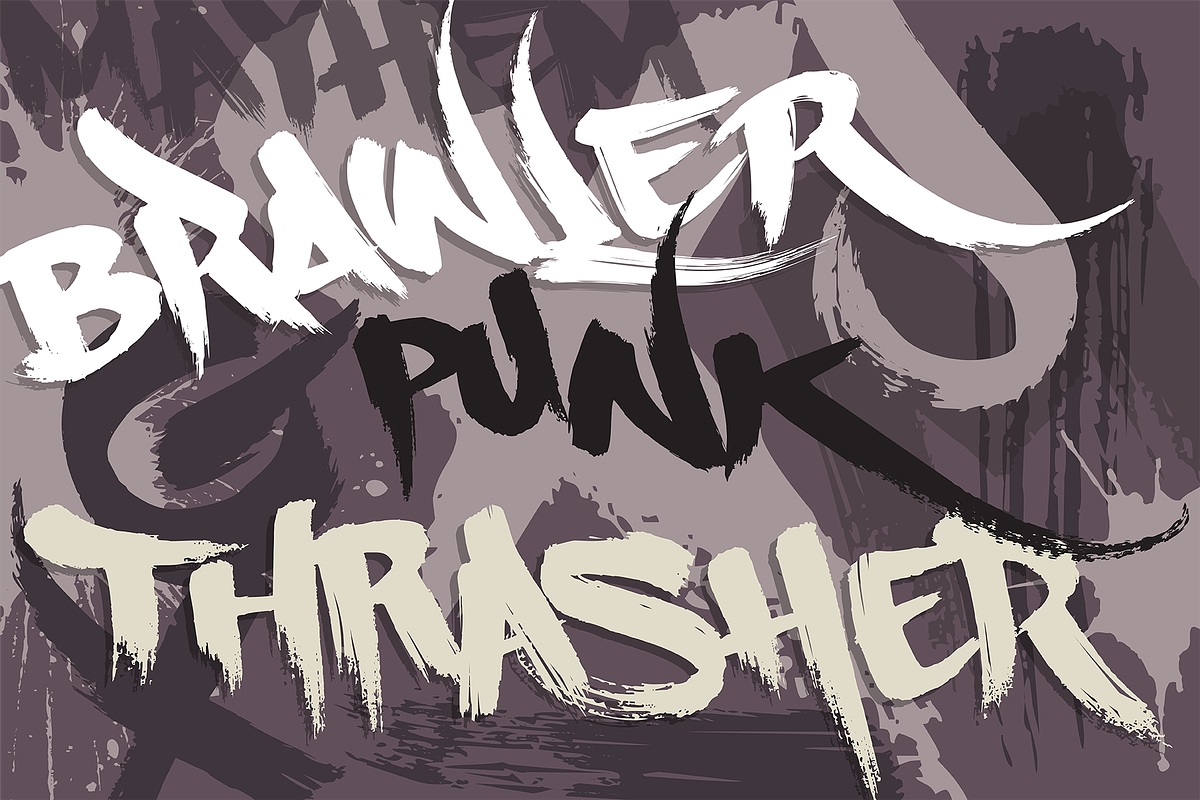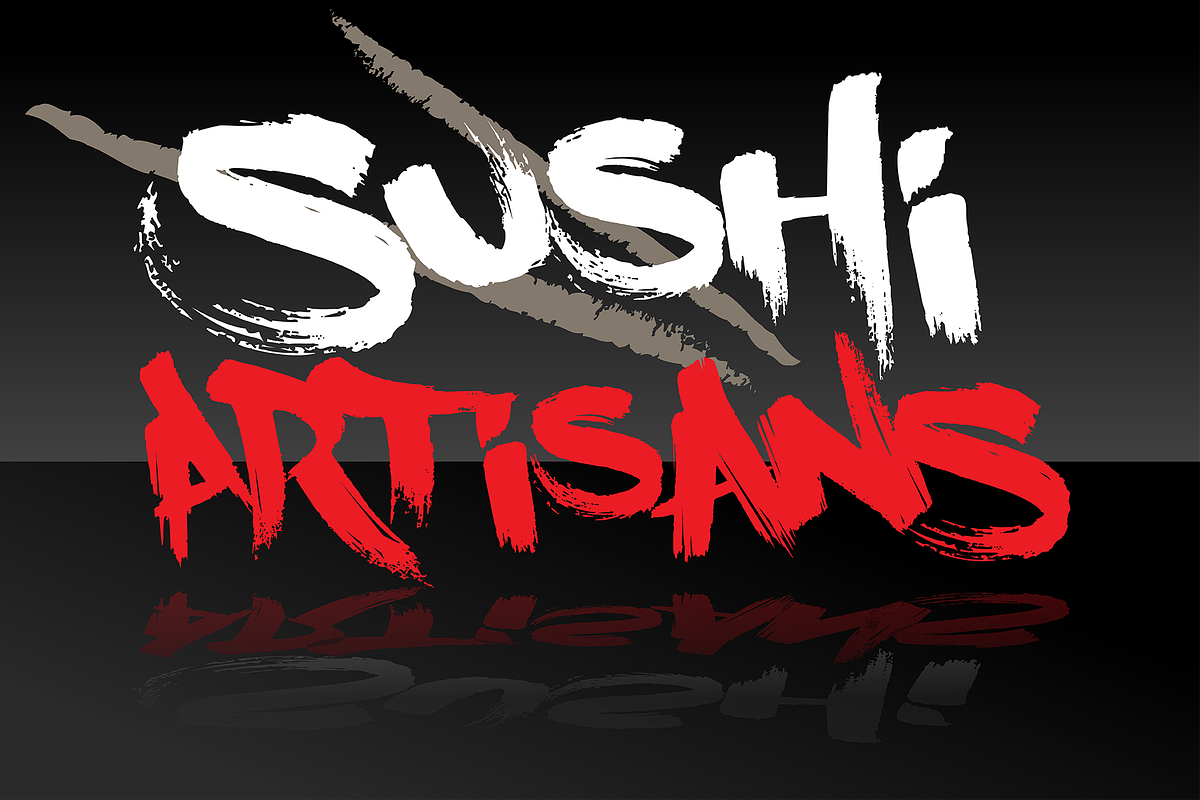
Fresh Paint Graffiti Font
Fresh Paint is a rough, paintbrush, graffiti style typeface featuring multilingual support and a full set of stylistic alternate letters. The very highly detailed glyphs and interchangeable letters from more than 3 full alphabets allow the creation of endless unique and realistic designs.